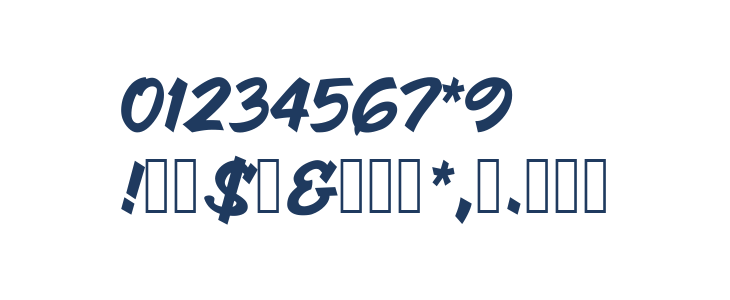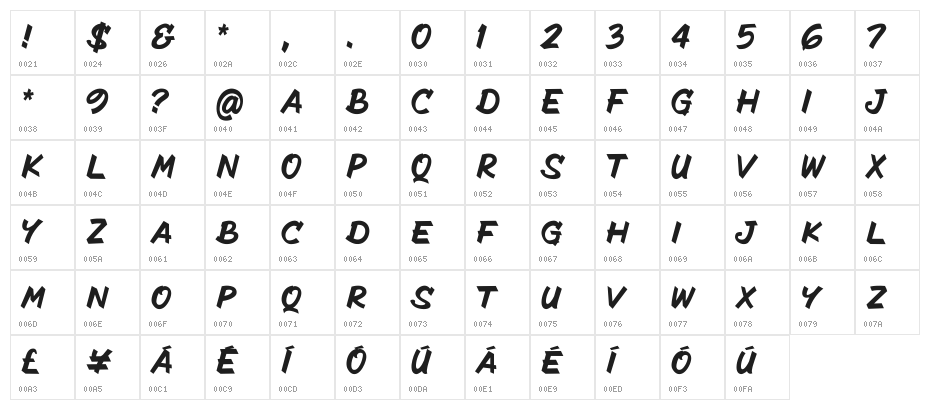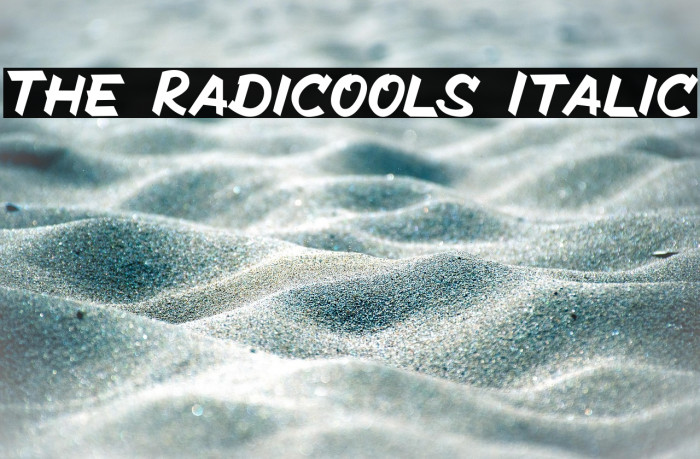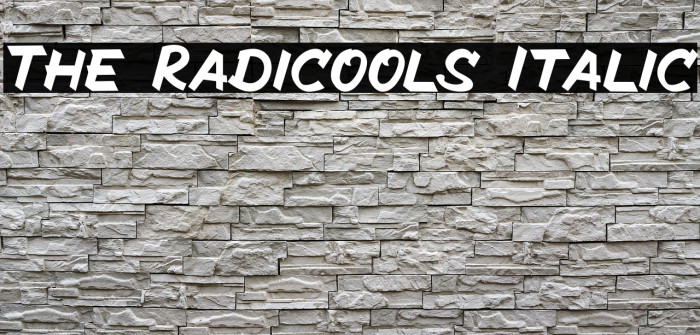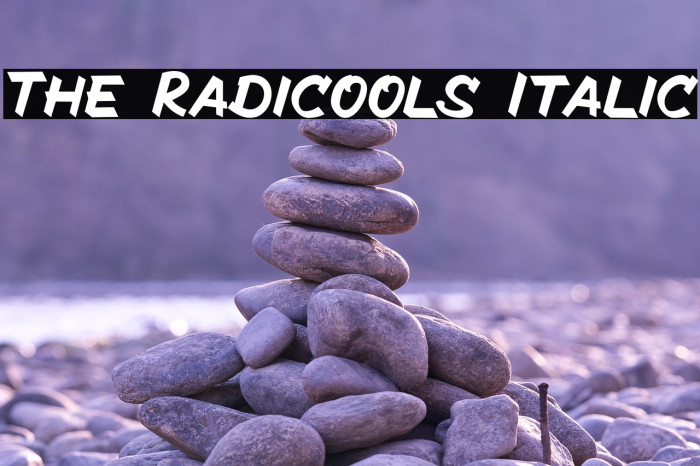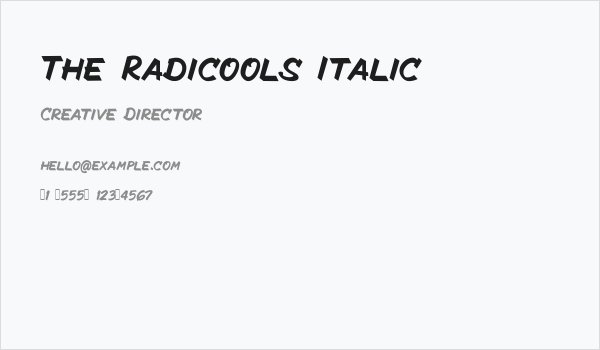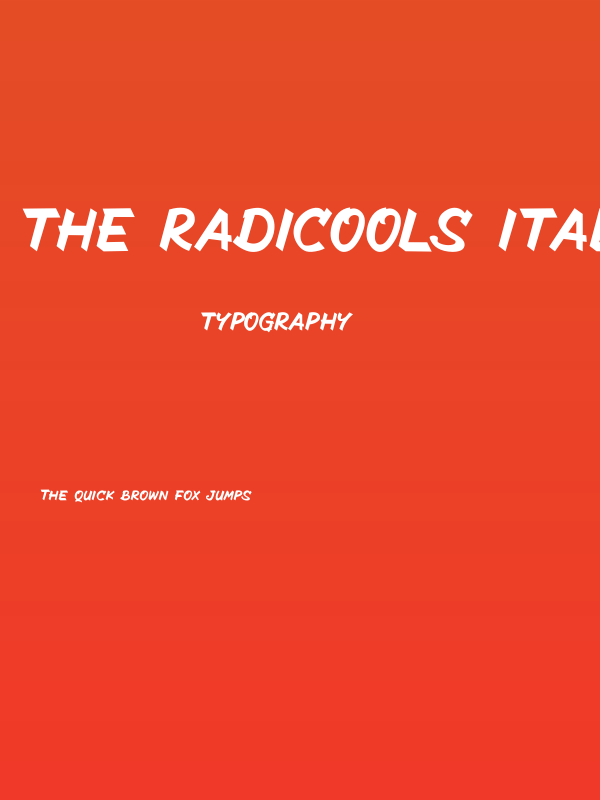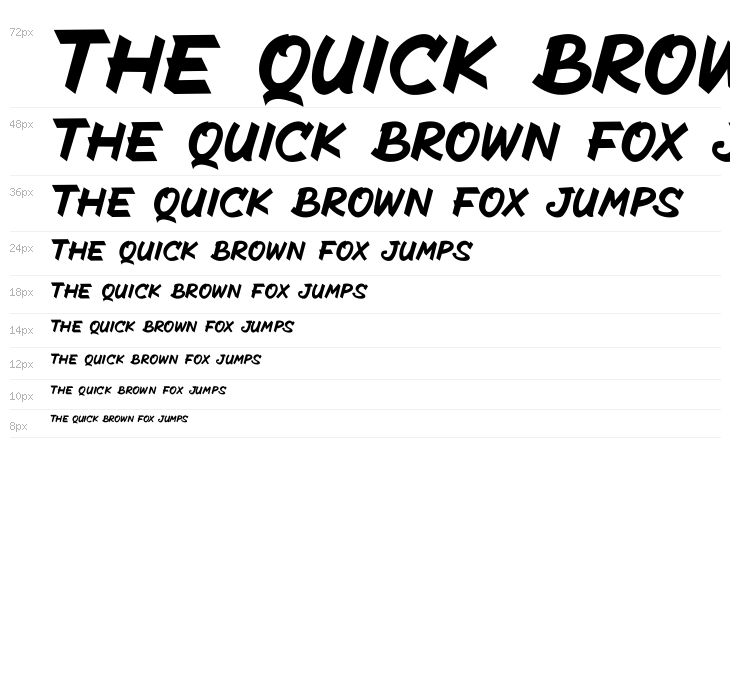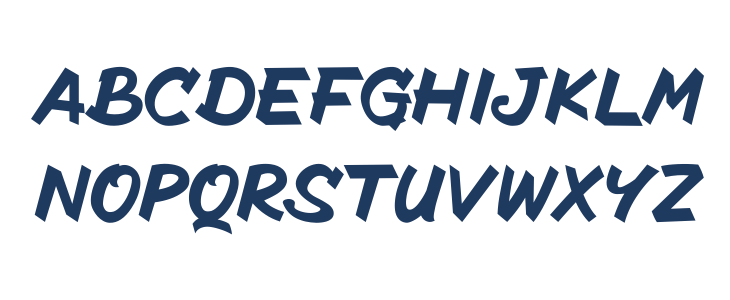
The Radicools Italic Font
The Radicools Italic Description
This font features a bold and dynamic style with a distinct italic slant, giving it a sense of movement and energy. The characters are thick and robust, with a playful and slightly rebellious flair. The strokes are consistent in weight, providing a uniform appearance across all letters and numbers. The uppercase and lowercase letters maintain a cohesive look, while the numerals and special characters integrate seamlessly into the overall design. The font's boldness and slant make it particularly eye-catching, ideal for projects that require a strong visual impact.
| Proposed Projects | Perfect for branding, posters, headlines, and any project needing a bold, impactful typeface. |